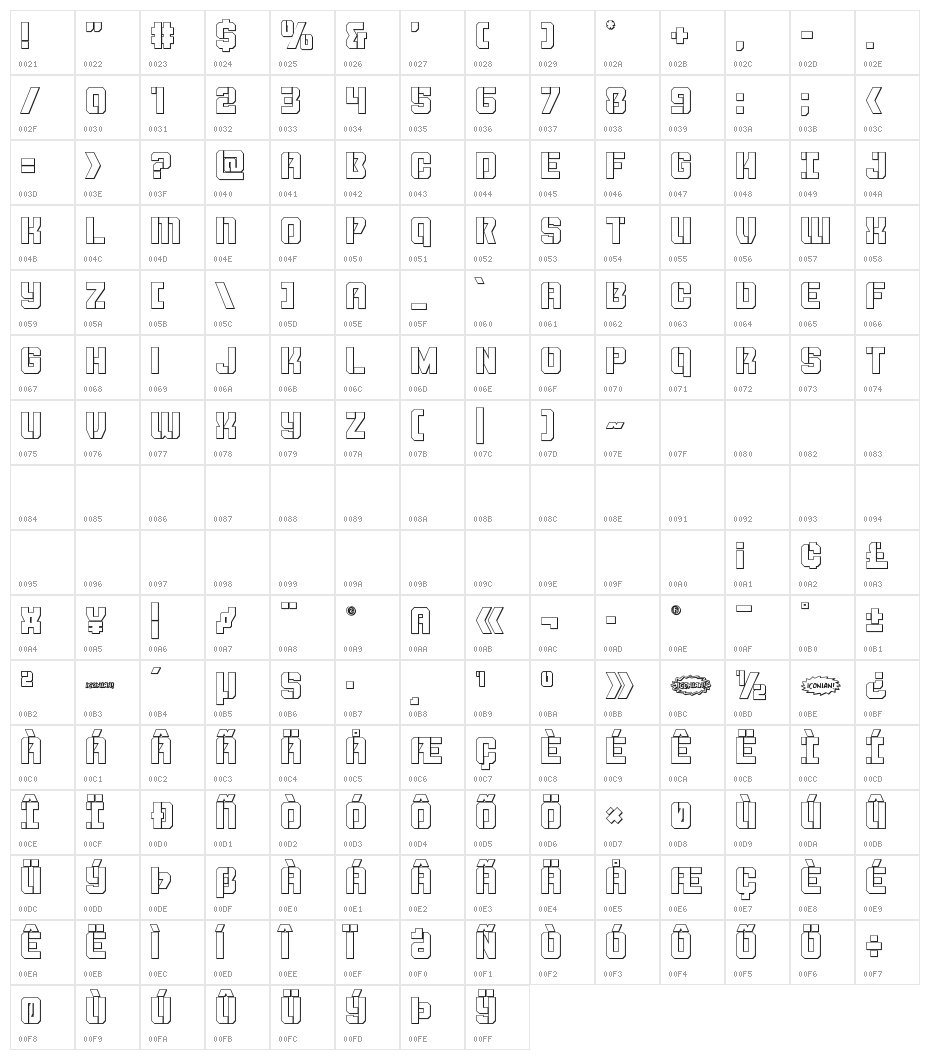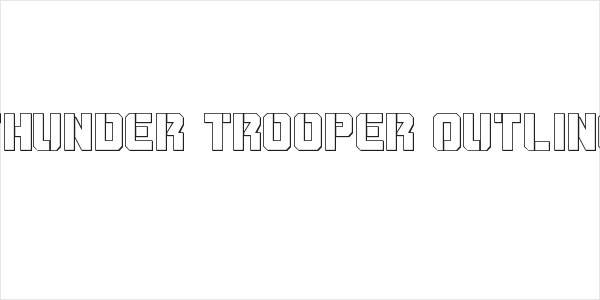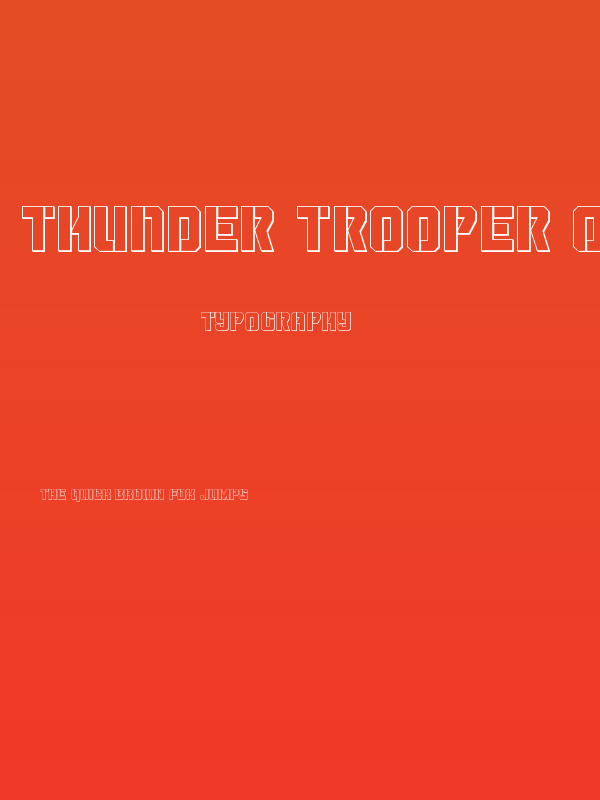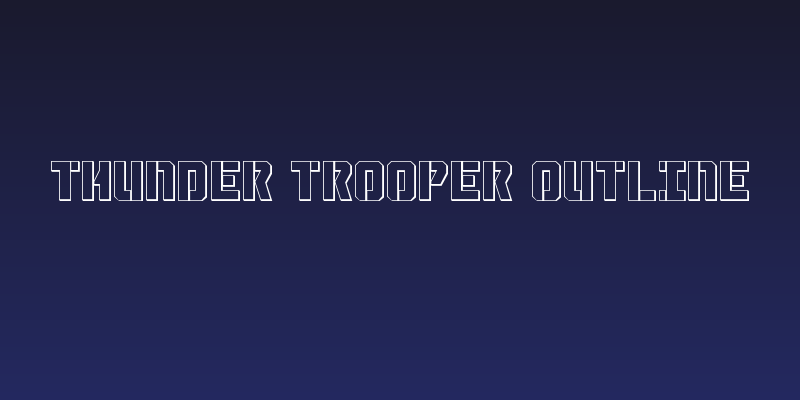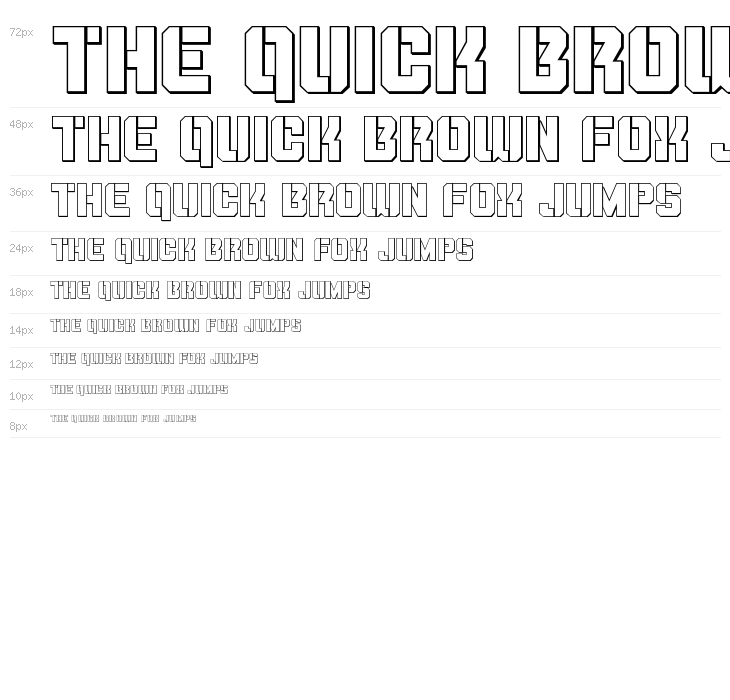
Thunder Trooper Outline Font
Thunder Trooper Outline Description
This font features a bold, geometric outline style that gives it a futuristic and industrial look. The characters are constructed with straight lines and sharp angles, creating a sense of precision and strength. Each letter and number is outlined, providing a hollow appearance that enhances its modern aesthetic. The font maintains uniformity in height and width, ensuring a consistent visual flow. Its distinct and eye-catching design makes it suitable for projects that require a strong visual impact.